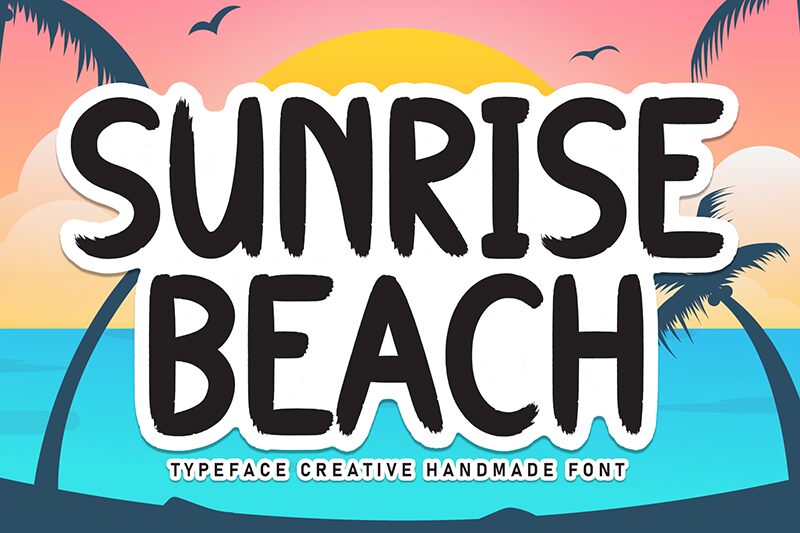
Sunrise Beach
Sunrise Beach font by Andi Moz is a free brush font with an organic feel, rough texture, and casual style. Irregular shapes and relaxed mood distinguish the alphabet that additionally presents notable contrast in strokes. A dynamic appearance is achieved thanks to minimalistic lines combined with heavier irregular elements for excellent creative work combinations.
Branding, packaging, advertisement, posters typography is some of the main usage areas within which the typeface truly shines. Other interesting applications are found in visual identities/runways connected with lifestyle/fashion/events thus revealing all its design power.